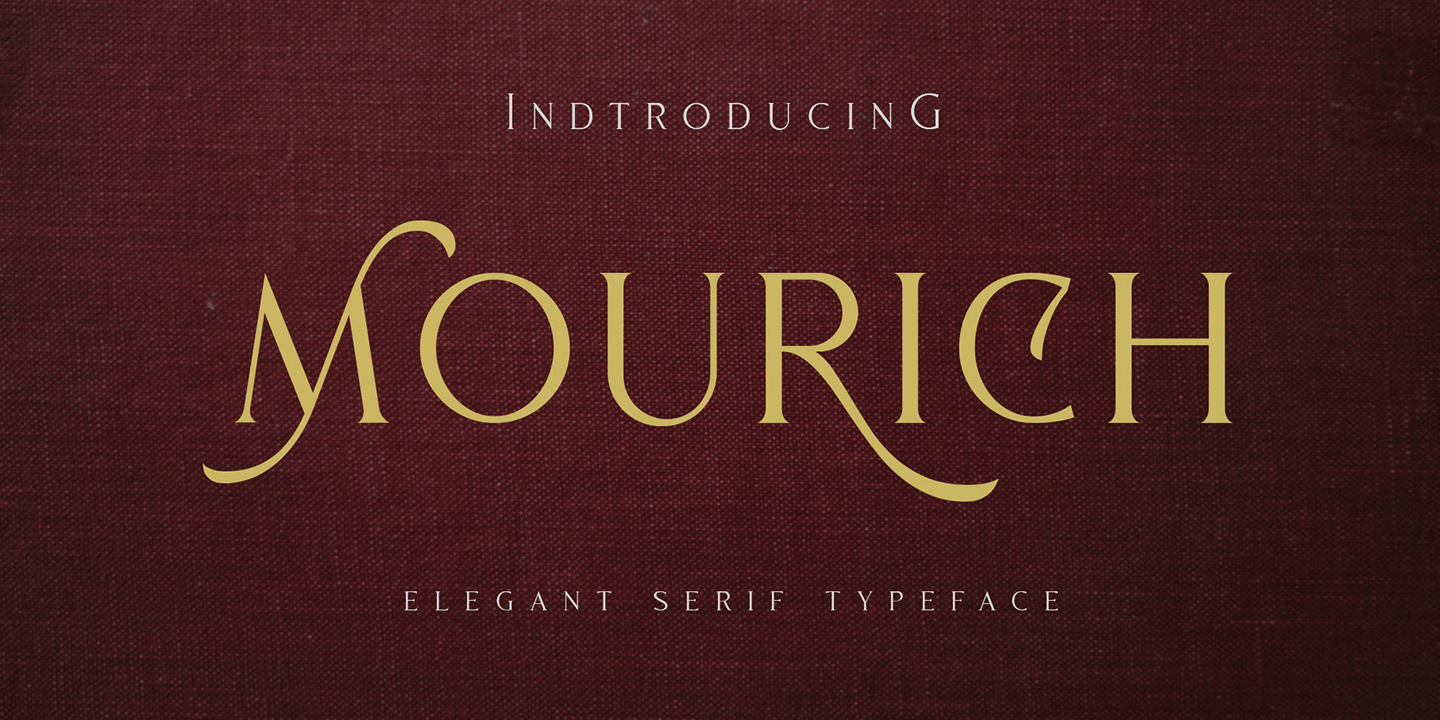
Mourich Font is perfect for luxury fashion boutiques, high-end jewelry advertisements, premium cosmetics packaging, elegant perfume labels, sophisticated art gallery exhibitions, upscale hotel branding, exclusive event invitations, and refined lifestyle magazines.
Mourich Font is exciting because it epitomizes opulent sophistication with its meticulously crafted letterforms that whisper exclusivity and refinement. The typeface channels the essence of French luxury and aristocratic elegance, creating an immediate sense of prestige and cultivated taste that elevates any design to couture-level sophistication.
Mourich Font family includes Light, Regular, Medium, Bold, and Ultra variants, complemented by elegant italic styles and decorative alternates, giving designers luxurious typographic options for creating sumptuous visual experiences that command respect and admiration.
Whether you're crafting materials for a prestigious fashion house, designing exclusive club memberships, or developing ultra-premium product packaging, Mourich Font Free Download provides unrivaled elegance and aristocratic charm. This distinguished typeface masterfully combines old-world refinement with contemporary luxury sensibilities, ensuring your designs resonate with affluent audiences who appreciate exceptional quality and attention to detail. The font's exquisite proportions and sophisticated character details make it particularly effective for brands that position themselves at the pinnacle of their industries. Luxury brand designers consistently choose Mourich Font when projects demand typography that communicates exclusivity, heritage, and uncompromising quality, making it an indispensable asset for high-end branding, premium packaging, and any application where sophisticated typography can transform ordinary communication into extraordinary experiences that reflect wealth, status, and impeccable taste.